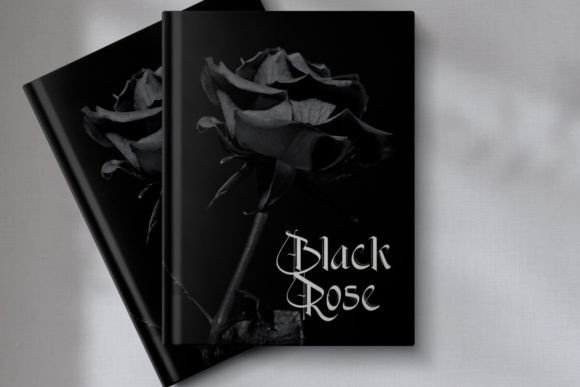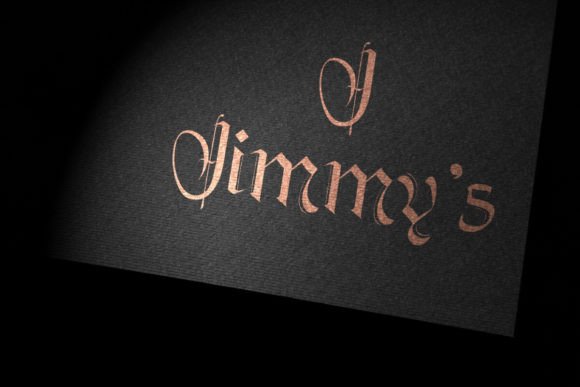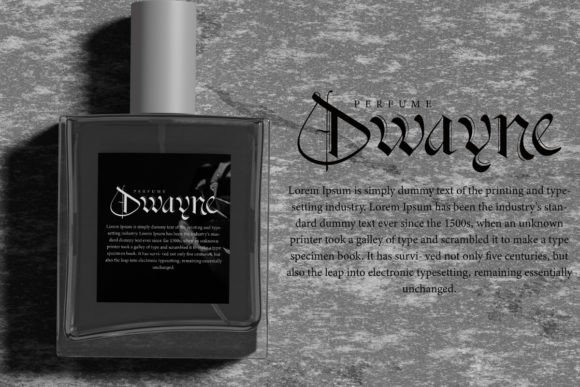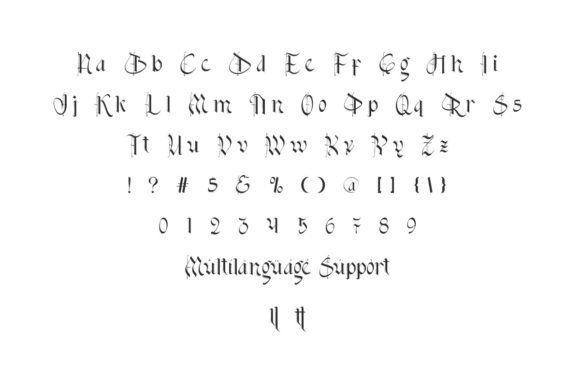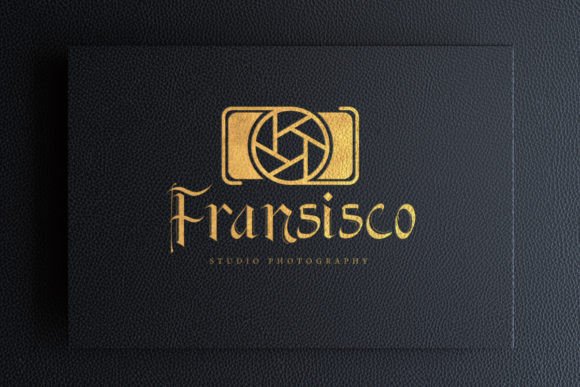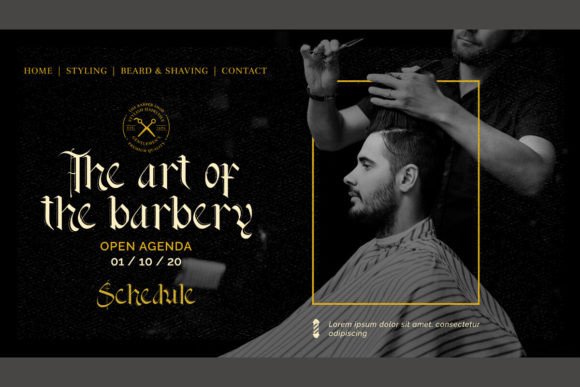
Unleash Your Dark Creativity with Black Gothics Font
Have you ever been stuck in the middle of a design project, desperate for the perfect font to elevate your creation? You scroll through countless options, but nothing seems to capture the essence of your vision. That’s where Black Gothics Font comes in – a blackletter modern display font with a gothic twist that’s sure to leave a lasting impression.
Whether you’re working on a billboard campaign, designing a brand logo, or crafting a brochure, Black Gothics Font is the perfect addition to take your designs to new heights. With its bold, dramatic flair, this font is sure to make your designs stand out from the crowd.
For designers, Black Gothics Font is a valuable tool in their arsenal, offering endless possibilities for creative expression. Its versatility makes it perfect for a wide range of applications, from business cards to website headers.
- Unique Characteristics: Distinctive gothic-inspired design, bold and dramatic lines, and intricate details that evoke a sense of mystery and elegance
Black Gothics Font Review
Black Gothics Font is a unique and intriguing typeface that’s sure to grab attention. ✨ The dramatic flair and ornate details make it perfect for adding a touch of mystery and sophistication to your designs.
- ✨ The bold and dramatic style is great for making a statement.
- ✨ The ornate details add a level of sophistication and elegance.
- ✨ The font is highly customizable, allowing you to adjust the style to fit your design needs.
- ⚠️ The font may be difficult to read at small sizes, especially for those with vision impairments.
- ⚠️ The ornate details can make the font look cluttered if not used carefully.
- ⚠️ The font may not be suitable for body text, as it can be overwhelming and distracting.
Overall, Black Gothics Font is a great choice for designers who want to add a touch of drama and elegance to their designs. However, it’s essential to use it judiciously and consider the limitations to ensure the best results.
For the best results, use the “Black Gothics Font” in bold or italic styles to add emphasis to your text.
Combine the font with dark or bold backgrounds to create a dramatic and edgy look.
The “Black Gothics Font” is ideal for:
Rock music and goth-inspired designs.
Dark and edgy fashion or beauty branding.
Horror-themed designs or artwork.